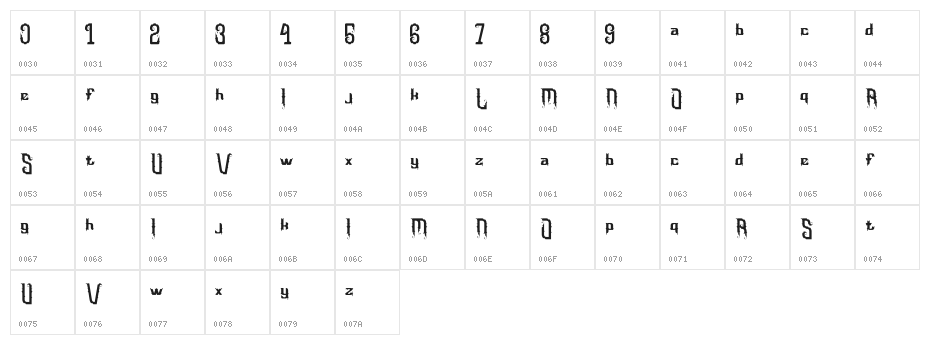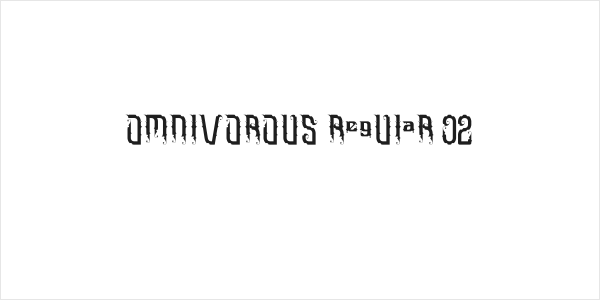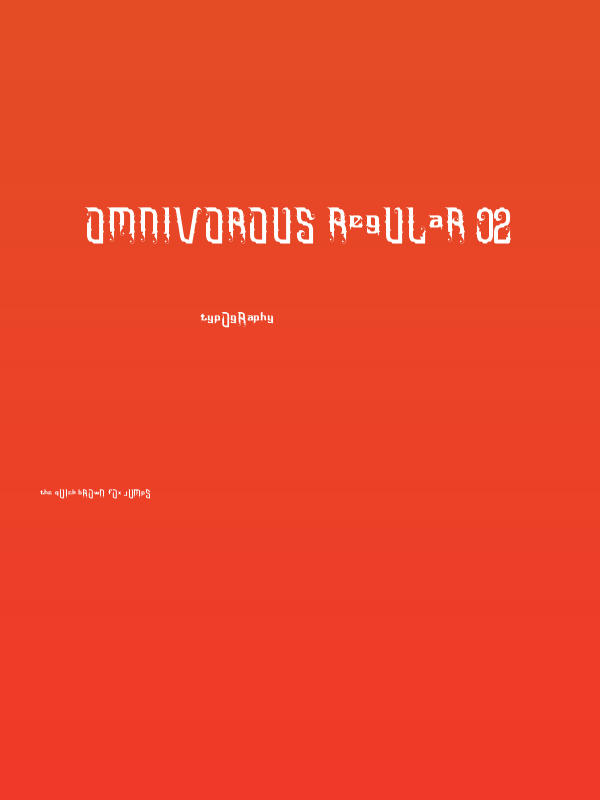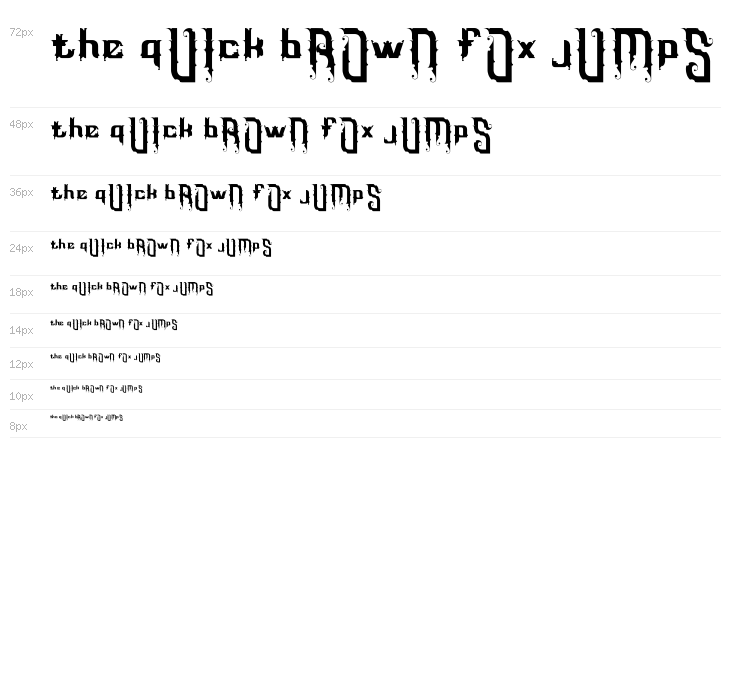
Omnivorous Regular 02 Font
Omnivorous Regular 02 Description
This font features a unique and decorative style with intricate, swirling details that give it a gothic and mysterious appearance. The characters are bold and have a slightly distressed look, adding to their dramatic flair. The uppercase letters are particularly ornate, with flourishes that extend from the main strokes, while the lowercase letters maintain a consistent style with less embellishment. The numerals and special characters follow the same decorative theme, ensuring a cohesive look across all glyphs. This font is ideal for projects that require a touch of elegance and intrigue, such as event posters, book covers, or themed branding materials.
| Overall Style | Gothic, Decorative |
| Proposed Projects | Ideal for event posters, book covers, themed branding, and decorative signage. |